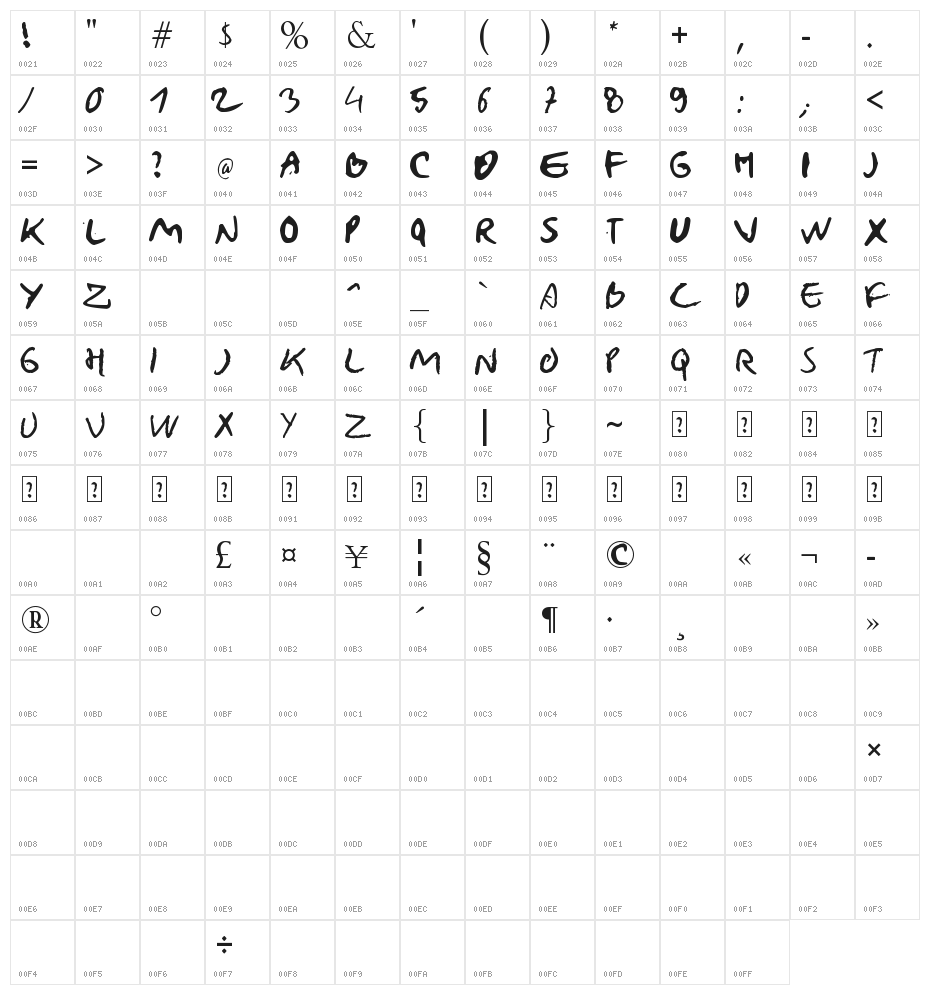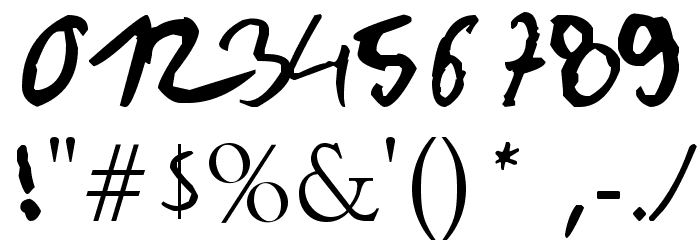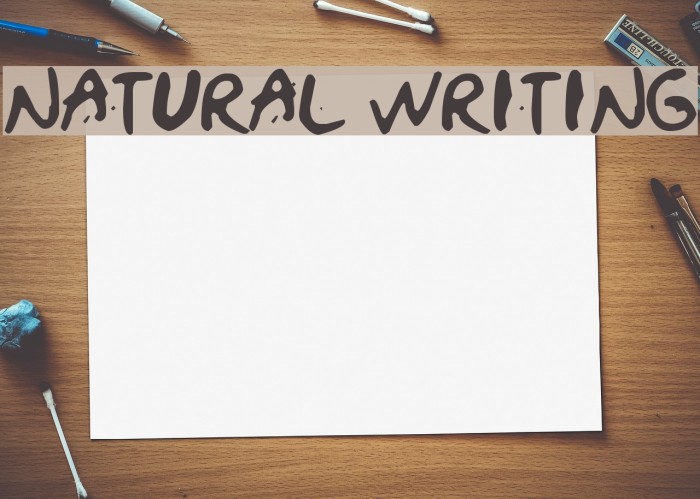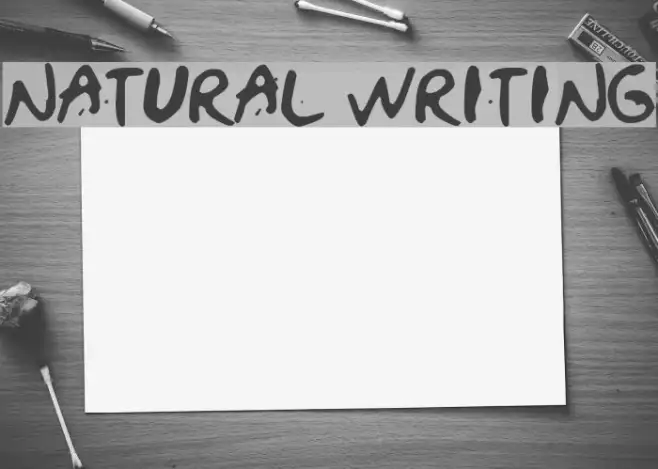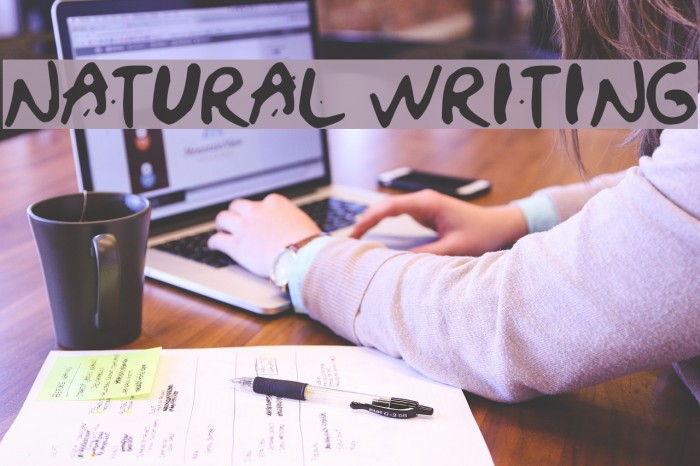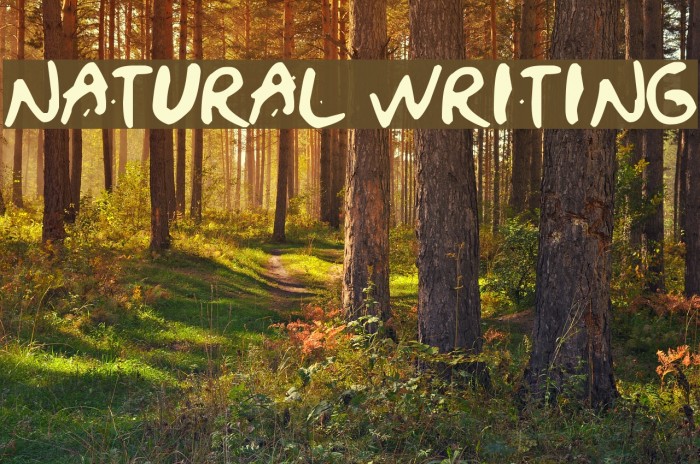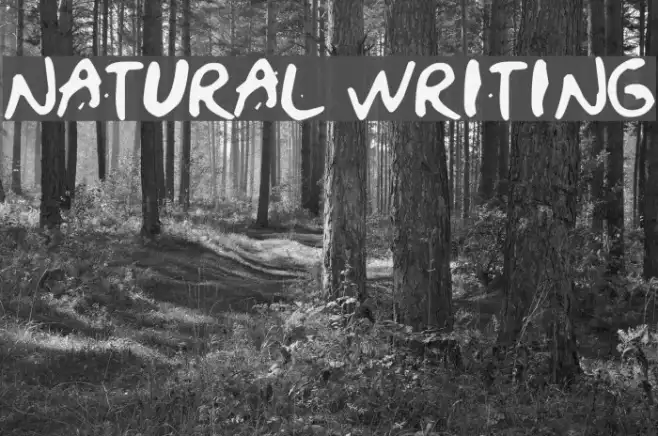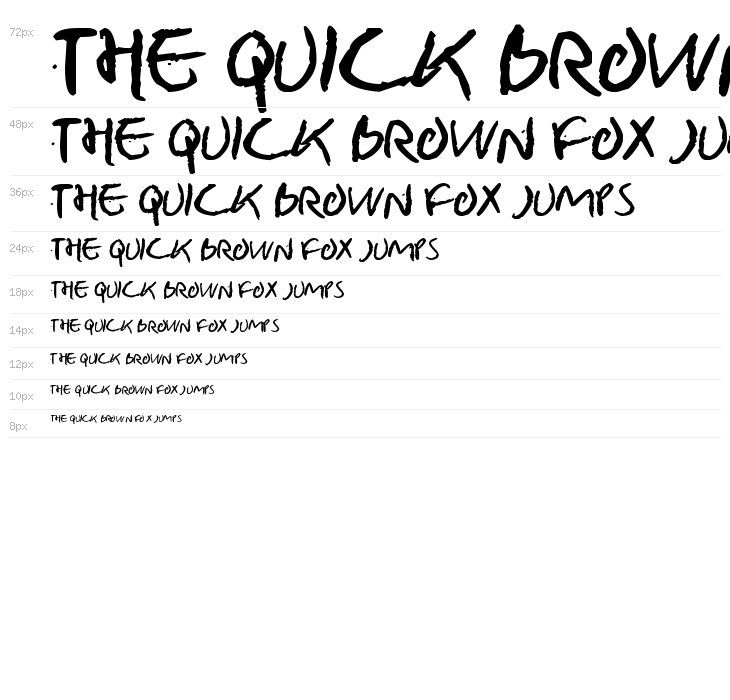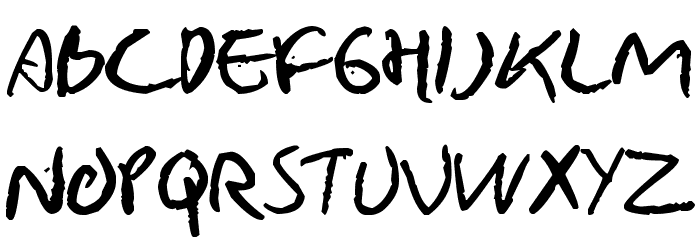
NATURAL WRITING Font
NATURAL WRITING Description
This font exudes a dynamic and energetic style, reminiscent of natural handwriting with a bold and expressive flair. The characters are crafted with a brush-like texture, giving them a raw and organic appearance. The uppercase and lowercase letters maintain a consistent flow, while the numbers and special characters integrate seamlessly with the overall design. This font's unique style captures a sense of spontaneity and creativity, making it ideal for projects that require a personal touch. Its bold strokes and irregular shapes add a playful yet sophisticated edge, perfect for artistic and informal applications.
| Proposed Projects | Ideal for greeting cards, artistic posters, branding projects, and creative social media graphics. |